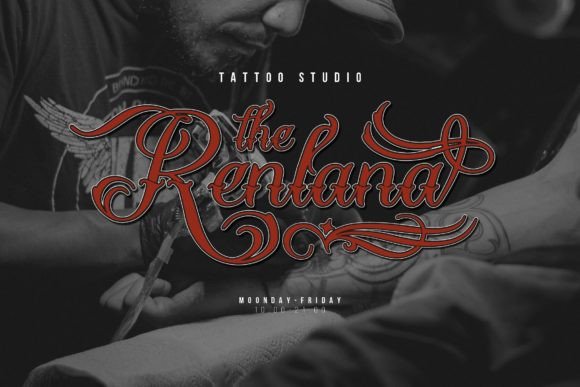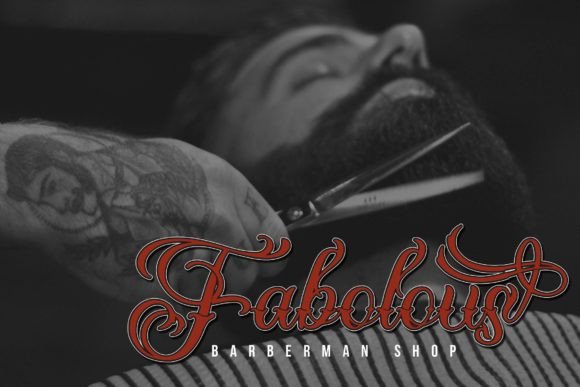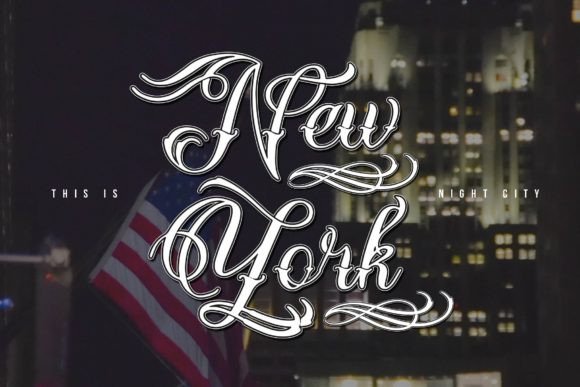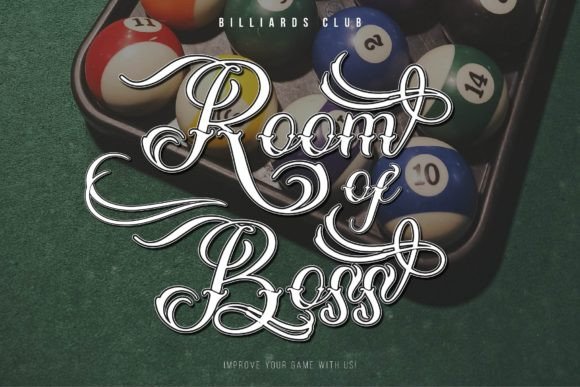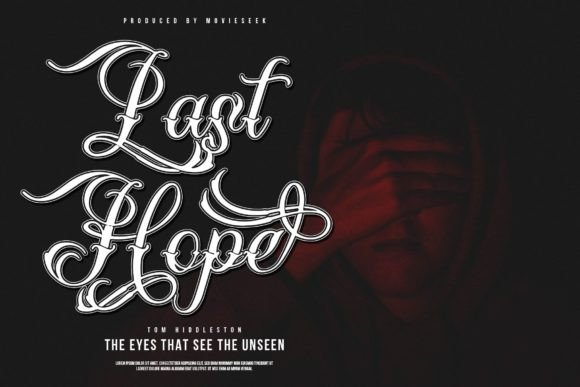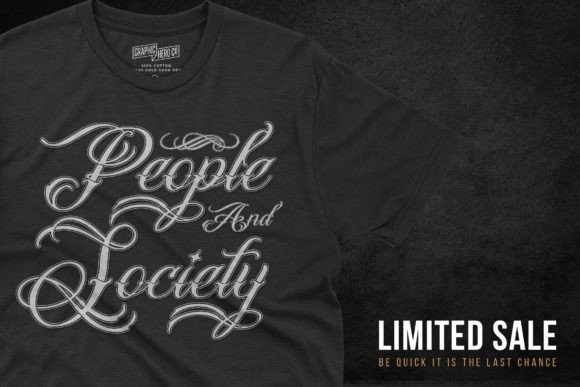
Discover the Elegance of Claimus De Sances Font: A Timeless Tattoo Script
In the world of typography, few fonts manage to capture the essence of elegance and classic flair as beautifully as Claimus De Sances. This stylish tattoo script has gained popularity among designers, crafters, and tattoo enthusiasts alike for its unique blend of sophistication and personal touch. In this article, we’ll delve into the characteristics that make Claimus De Sances a standout choice for names, quotes, or meaningful words.
The Unique Charm of Claimus De Sances
Claimus De Sances is distinguished by its flowing, cursive letters that exude a sense of luxury and refinement. The font’s design is reminiscent of traditional calligraphy, with each letter meticulously crafted to contribute to a harmonious and visually appealing whole. This makes Claimus De Sances an excellent choice for those looking to add a touch of class and sophistication to their designs.
Key Features of Claimus De Sances Font
- Flowing Cursive Letters: The font’s cursive nature gives it a dynamic and fluid feel, perfect for creating a sense of movement and elegance in any design.
- Elegant and Sophisticated: Claimus De Sances embodies a high level of sophistication, making it suitable for designs that require a touch of luxury and refinement.
- Versatile: Whether it’s for names, quotes, or meaningful words, Claimus De Sances adapts beautifully to various contexts, offering versatility for designers and crafters.
- Classic Flair: The font retains a classic appeal that transcends fleeting trends, ensuring that designs remain timeless and relevant.
Applications of Claimus De Sances Font
The versatility of Claimus De Sances makes it suitable for a wide range of applications. Here are some of the most popular uses:
- Tattoo Designs: Its elegant and personal touch makes Claimus De Sances a favorite among tattoo artists and clients looking for sophisticated and meaningful body art.
- Calligraphy and Hand Lettering: Designers and crafters can use Claimus De Sances as inspiration for hand-lettered projects, adding a touch of elegance to wedding invitations, posters, and more.
- Graphic Design: The font is perfect for graphic design projects that require a touch of sophistication, such as branding, packaging, and editorial design.
- Personal Projects: For personal use, Claimus De Sances can add a touch of class to planners, journals, and other personal stationery.
Tips for Using Claimus De Sances Effectively
To make the most of Claimus De Sances, consider the following tips:
- Pair with Simplicity: Allow Claimus De Sances to be the focal point by pairing it with simpler fonts or backgrounds that don’t compete for attention.
- Experiment with Colors: The font’s elegance shines through in various colors. Experiment with different shades to find the perfect match for your design.
- Pay Attention to Spacing: The cursive nature of Claimus De Sances means that spacing can significantly affect readability. Ensure there’s adequate space between words and lines.
Claimus De Sances font offers a unique blend of elegance, sophistication, and classic flair, making it a valuable addition to any designer’s or crafter’s toolkit. Its versatility and timeless appeal ensure that it will remain a popular choice for years to come. Whether you’re creating tattoo designs, working on graphic projects, or simply looking for a beautiful font for personal use, Claimus De Sances is sure to impress.
With its flowing cursive letters and sophisticated charm, Claimus De Sances is more than just a font – it’s a way to add a touch of luxury and personal touch to any design. Explore its possibilities and discover how it can elevate your creative projects to new heights of elegance and refinement.